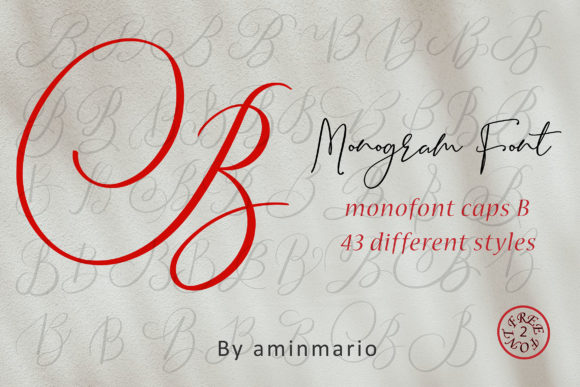
Monogram B | Monofont Caps B Font
Unleash the Enchantment of Monogram B | Monofont Caps B: The Key to Unforgettable Designs
In a world saturated with digital creations, standing out amidst the noise can be a daunting task. Yet, with the right tools, you can captivate audiences and leave an indelible mark on their minds. Enter Monogram B | Monofont Caps B, the font collection that unlocks the power of distinction.
This meticulously crafted collection is a symphony of visual artistry, designed to elevate your creative expressions to new heights. Inspired by the beauty of handwritten signatures, Monogram B captures the essence of individuality and authenticity. Each stroke, each curve, each flourish is a testament to the uniqueness that lies within you.
Designed with the creative professional in mind, Monogram B is not just a collection of fonts; it's a gateway to a world of captivating designs. Whether you're a seasoned graphic artist or just starting your creative journey, this collection will empower you to create visuals that resonate with your audience.
Imagine the impact of a logo that dances with personality, a poster that commands attention, or a social media post that sparks a conversation. Monogram B grants you the power to turn your vision into reality, transforming ordinary designs into masterpieces that captivate and inspire.
But Monogram B is more than just a beautiful font collection; it's a strategic investment in your creative future. This versatile collection is meticulously designed to complement a wide range of projects, from elegant wedding invitations to bold branding designs. Its adaptability ensures that you'll always have the perfect font to match your creative vision, no matter how ambitious or unique.
As a bonus, Monogram B comes with two additional fonts, Planets Signature and West London, further expanding your creative arsenal. These fonts provide the perfect accompaniment to Monogram B, offering a harmonious blend of styles that complement each other seamlessly.
Don't settle for ordinary fonts that blend into the background. Embrace the power of Monogram B | Monofont Caps B and unleash your creativity like never before. Let your designs speak volumes, leaving a lasting impression on your audience.